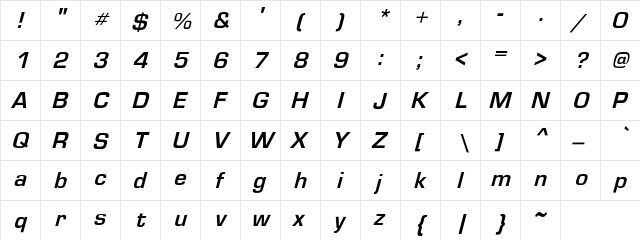
EurostileObl-Bo Regular Font Preview
EurostileObl-Bo Regular
Design Context for EurostileObl-Bo Typeface
EurostileObl-Bo offers clean, dependable letterforms without strong stylistic allegiance, making it a practical choice for designers who need flexibility.